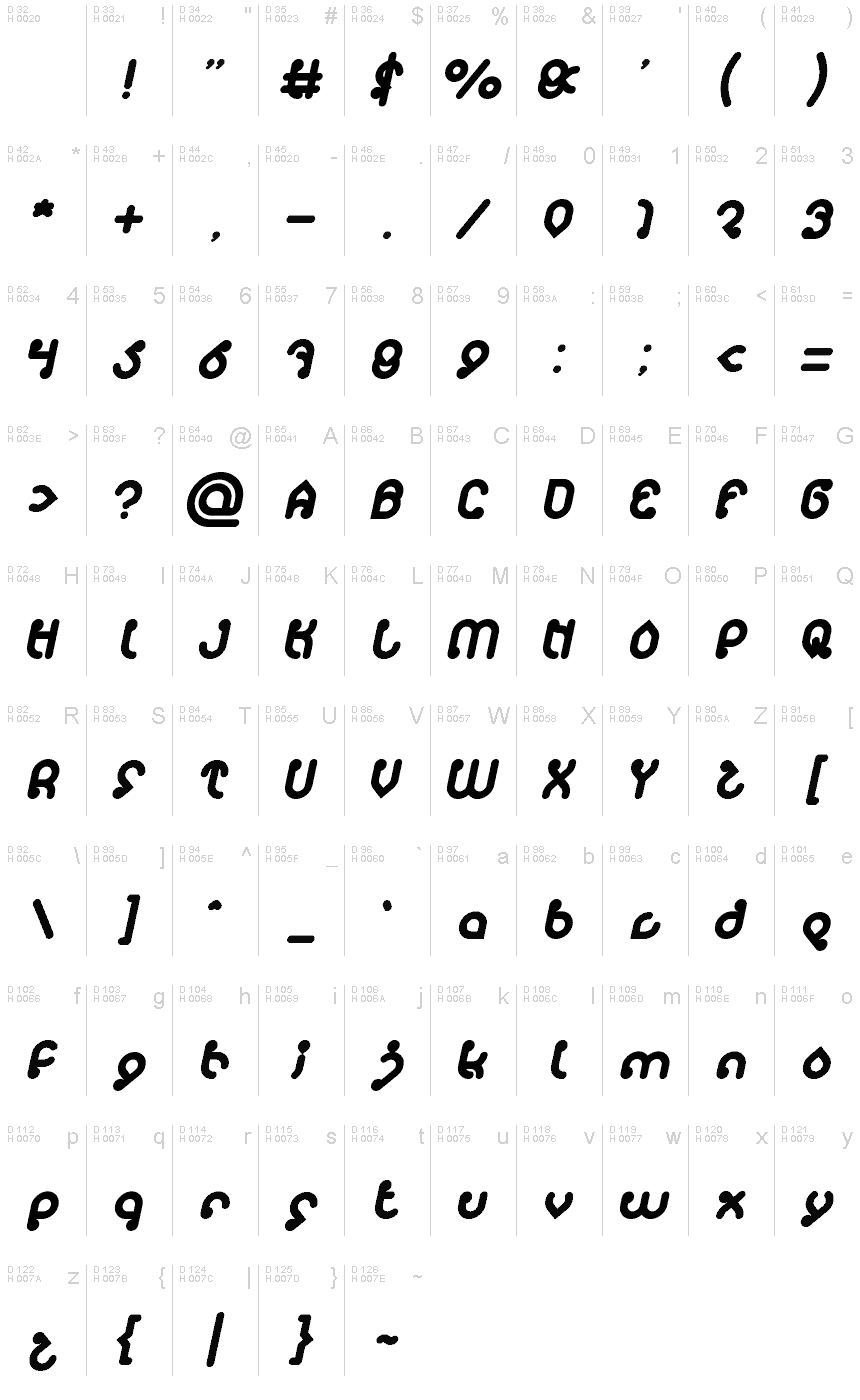
monica Italic
Monica Italic is a captivating display font that emanates a groovy, retro-inspired aesthetic. Designed by the Weknow team, this font exudes a bold and playful personality, with its distinctive curvy letterforms and smooth, flowing lines. The italic style adds a dynamic, energetic flair, making it well-suited for headings, logos, and branding applications that seek to convey a sense of movement and vibrancy.
This versatile font can seamlessly blend into a variety of design contexts, from vintage-inspired layouts to modern, minimalist compositions. Its unique character lends itself particularly well to the creation of eye-catching titles, impactful posters, and engaging social media content. The distinctive personality of Monica Italic makes it a compelling choice for designers seeking to infuse their work with a touch of vintage-inspired charm and a playful, groovy vibe.